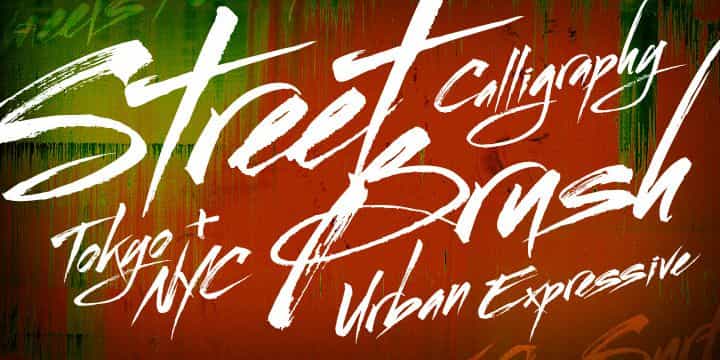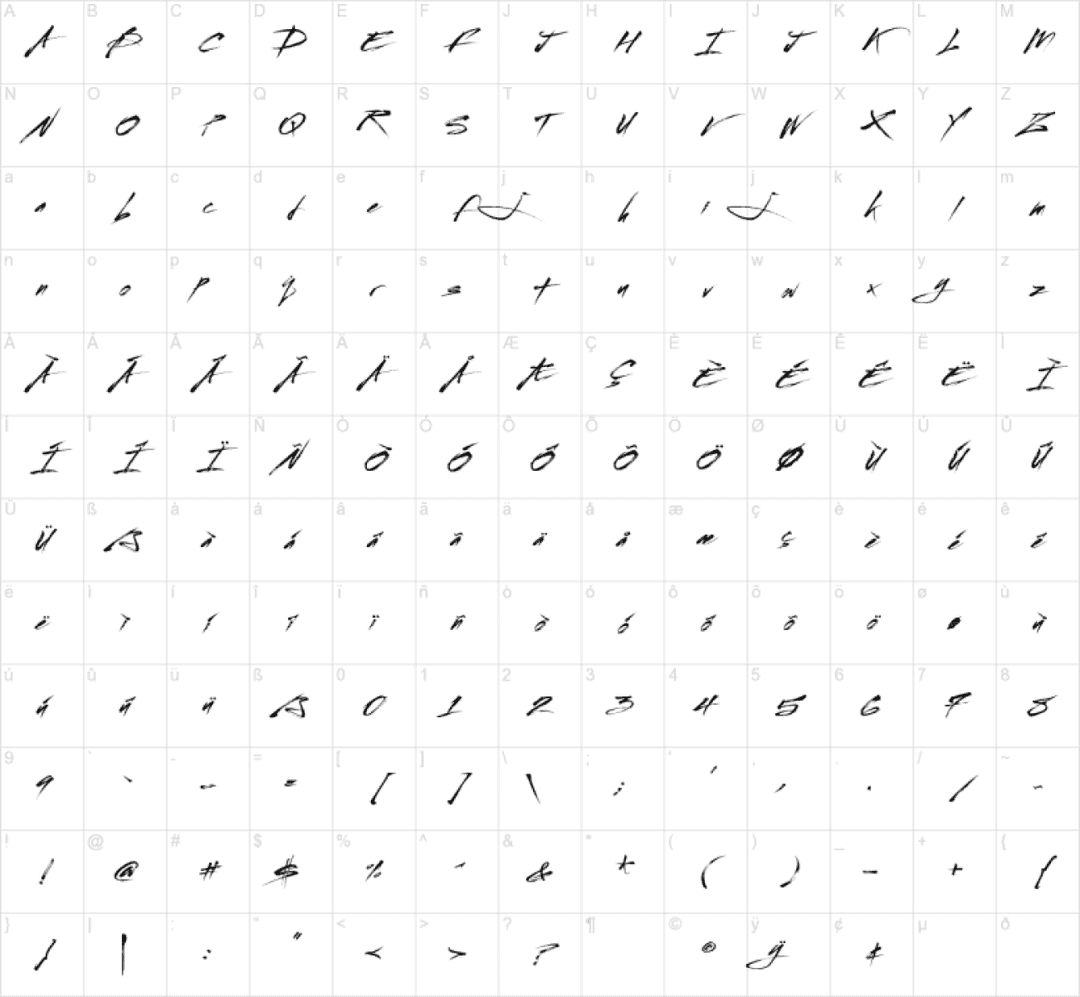
My senior year in high school saw me as a guy who was always covering notebook pages with layers of graffiti stickers starting from the margins and eventually filling every inch on each page. With the help of practice and experiments, I acquired a talent for rapid and expressive hand movement which later on turned into brushwork.